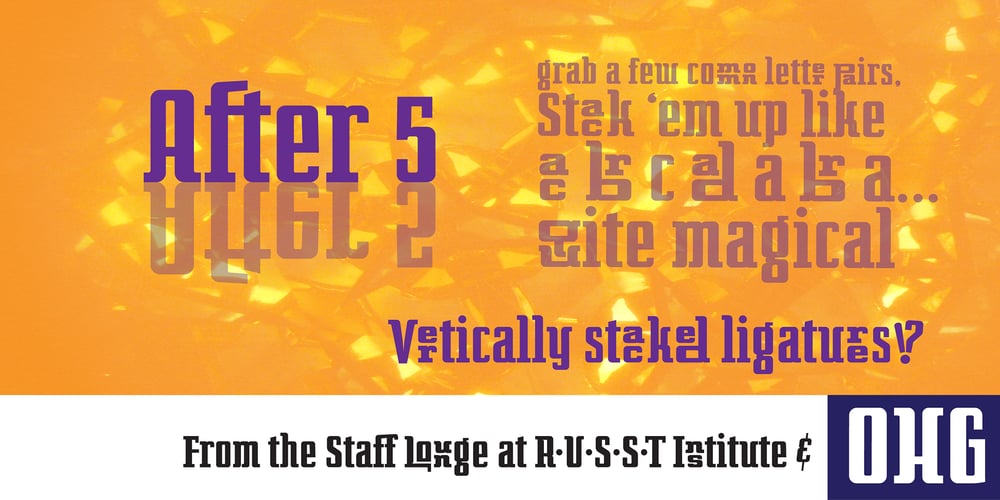
After 5 Font Family was designed by Russell A. McGorman and published by Our House Graphics. After 5 contains 2 styles and family package options. From the basement labs and after hours lounge of R?U?S?S?T Institute, we present After 5. With a somewhat formal (ha ha) yet warm, friendly feel, its normally calm, even tempered and sensible rhythm takes on the syncopated, jazzy beat that goes along with too many martinis when discretionary ligatures are turned on. A friend once asked, was I trying to design a font that looked sort of �Korean?� I said no, I was trying to mess up the Latin alphabet. So, here it is: After 5, a bold, upright condensed slab-serif display typeface with a mixed-up attitude. Complete with bold roman and matching italics. This attention getting font is ideal for Posters, headlines, Packaging and logos.